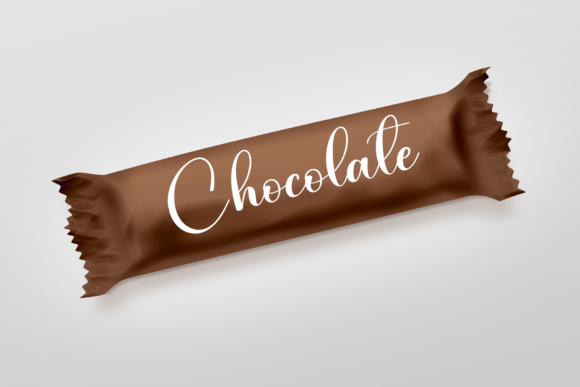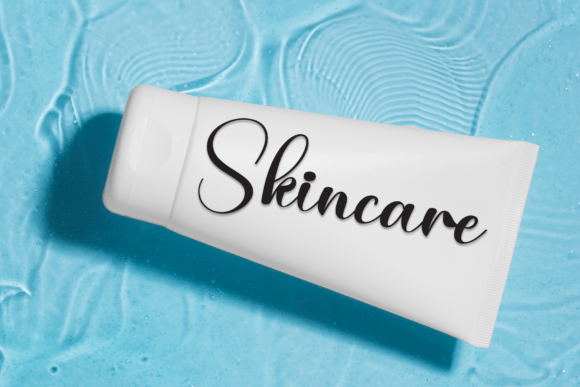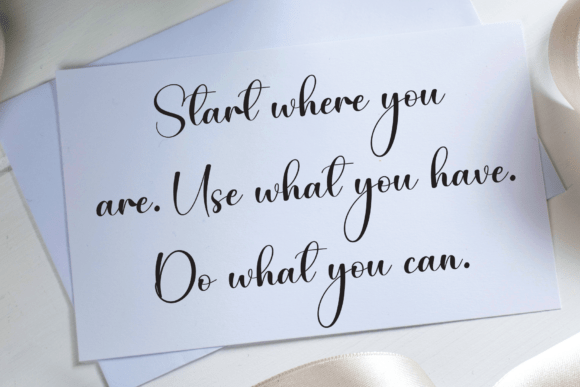
Introduction to Olivia Signature Font
Have you ever stumbled upon a beautifully crafted wedding invitation or a luxurious brand logo, and wondered what makes it so captivating? For many designers, it’s the subtle nuances of a handwritten font that elevates a design from ordinary to extraordinary. The Olivia Signature Font is one such treasure that has been making waves in the design community, and we’re excited to dive into its world.
As a valuable resource for designers, the Olivia Signature Font offers a unique blend of elegance and sophistication. Its flowing script and high contrast design elements make it perfect for high-end branding, wedding stationery, and other creative projects that demand a touch of refinement. With its clean execution and PUA-encoded design, this font provides effortless access to all its glyphs, swashes, and alternate characters, making it a must-have in every designer’s toolkit.
Key Features of Olivia Signature Font
- Unique, elegant script font design ideal for creative projects and personal branding.
- Perfect for use in logos, signatures, watermarks, and other design elements that require a touch of elegance and sophistication.
Honest Review: Olivia Signature Font
As a designer, I’m always on the lookout for high-quality fonts to elevate my creative projects. The Olivia Signature Font caught my attention, and I was excited to put it to the test.
What works well: ✨ The font has a beautiful, elegant design that’s perfect for luxury brands and high-end projects. It’s also available for free download, making it an excellent resource for designers on a budget. I love the transparent background option, which gives me flexibility when working on complex designs.
What doesn’t work well: ⚠️ The font only includes a limited number of styles and weights, which might be a drawback for designers who prefer a wider range of options. Additionally, some of the letters may not be suitable for smaller font sizes, which could affect readability.
Overall impression: I think the Olivia Signature Font is a great addition to any designer’s toolkit. While it has some limitations, its high quality and elegant design make it a valuable resource for creative projects. If you’re looking for a luxurious font to give your brand a premium feel, the Olivia Signature Font is definitely worth checking out.
- High-quality design suitable for luxury brands
- Limited number of styles and weights
- Some letters may not be suitable for smaller font sizes
Olivia Signature Font
The Olivia Signature Font is a high-quality design resource that can elevate your creative projects. With its unique style and transparent background, this font is perfect for adding a touch of elegance to your designs.
The Olivia Signature Font is perfect for:
- Designing wedding invitations and stationery
- Creating social media graphics and posts
- Adding a touch of elegance to business cards and brochures